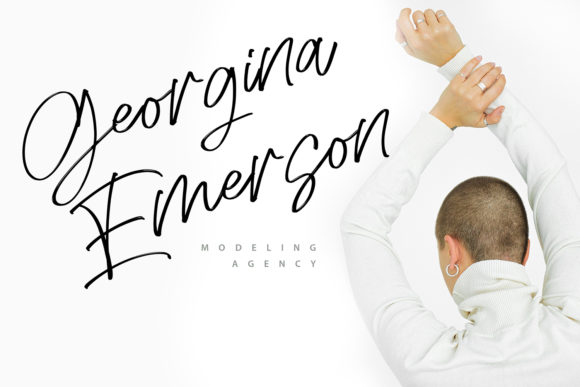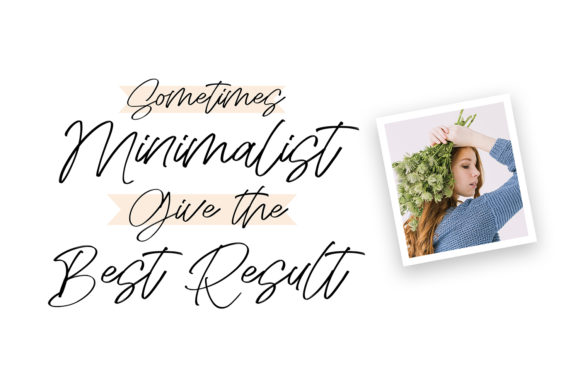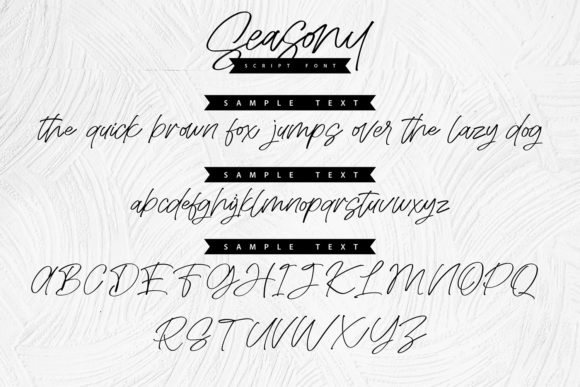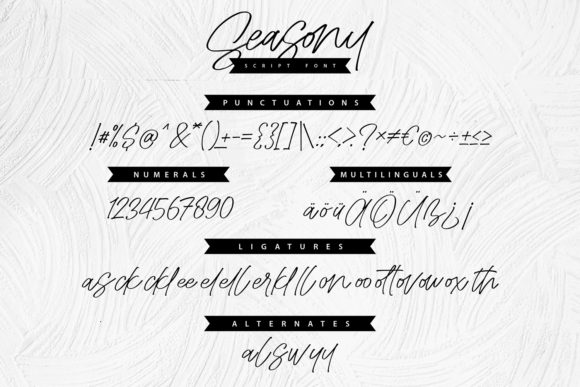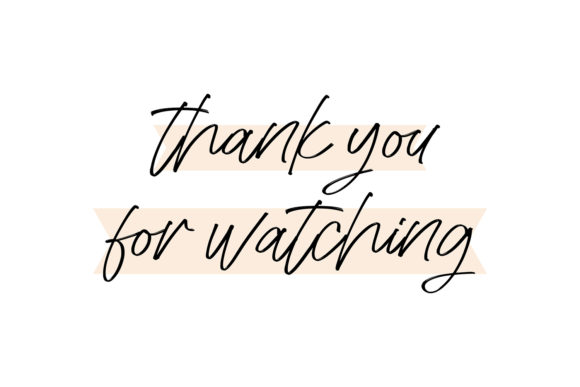
Introduction to Seasony Font
As a designer, you know that moment when a project finally comes together – the colors are just right, the typography is on point, and the message shines through. That’s the magic of creating something beautiful, and it’s exactly what the Seasony Font is designed to do. With its unique, handwritten style, this font adds a personal touch to any design, making it stand out from the crowd.
Whether you’re working on a logo, branding, or a quote for a special occasion, the Seasony Font is the perfect design resource to bring your vision to life. Its high-quality, free download makes it an accessible addition to any creative project. Plus, its transparent background allows for seamless integration with any design element, making it a valuable asset for any designer looking to elevate their work.
So, what makes the Seasony Font so special? Its beautiful, one-of-a-kind letters are the perfect way to add a touch of personality to any design, making it a must-have for designers looking to create eye-catching, memorable pieces that leave a lasting impression.
Key Features of Seasony Font
- High-quality, professional font design suitable for various creative projects, including graphic design, digital art, and publishing.
- Unique characteristic: This font features a dynamic, seasonal aesthetic with intricate details, making it ideal for projects that require a touch of whimsy and creativity.
- Perfect for designers looking for a free, high-quality design resource to enhance their creative projects, from invitations and greeting cards to digital art and graphics.
Honest Review: Seasony Font
I recently came across the Seasony Font and was excited to give it a try for my creative project. The first thing I noticed was the high quality of the font, which is a great starting point for any design resource.
What works well with the Seasony Font is its versatility. It comes in a range of styles, from casual to formal, making it suitable for a variety of design applications. ✨ The font is also highly customizable, allowing designers to adjust the size, color, and even the transparent background to fit their design needs.
While the Seasony Font is a great addition to any design library, I did notice a few limitations. ⚠️ For example, the font may not be as suitable for very large-scale designs, and the range of styles could be more extensive.
Overall, I’m impressed with the Seasony Font and would recommend it to designers looking for a high-quality, versatile font for their creative projects.
Seasony Font is ideal for various creative projects, including social media graphics, posters, flyers, and presentations. It’s also a great choice for designers who want to add a touch of personality and style to their work.